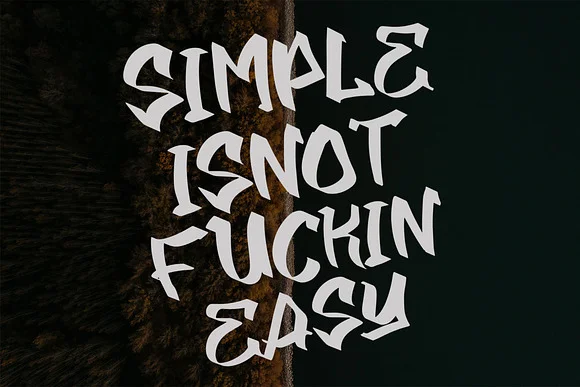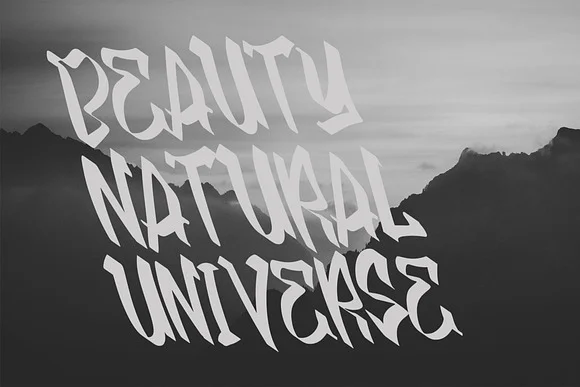
COVERE Gaffiti Font
Typography shapes perception at a subconscious level. COVERE Gaffiti leverages a confident voice that adapts to diverse briefs to make every composition feel considered. The typeface brings a versatile sensibility to a broad range of creative disciplines, with optical balance across all weights that holds up whether the work is print-first or screen-first.
In practice, COVERE Gaffiti proves particularly effective for logo design, environmental graphics, advertising campaigns, packaging design, web design. Designers reaching for it find that the type decisions feel resolved rather than laboured — a useful quality when client timelines are tight.
The range of applications extends to product labels, editorial layouts, signage systems, social media graphics. That breadth is deliberate: the proportions and spacing were stress-tested across a wide range of mock briefs before the typeface was finalised.
At smaller sizes the design retains its character without becoming cluttered. This resilience across scales makes COVERE Gaffiti equally suitable for a business card and a billboard — a useful property when assets must scale across a campaign.
UX designers establishing typographic systems for digital products find COVERE Gaffiti a reliable choice for projects that demand both personality and restraint. The design avoids the self-conscious quirkiness that dates quickly, settling instead for considered distinctiveness that holds up over time.